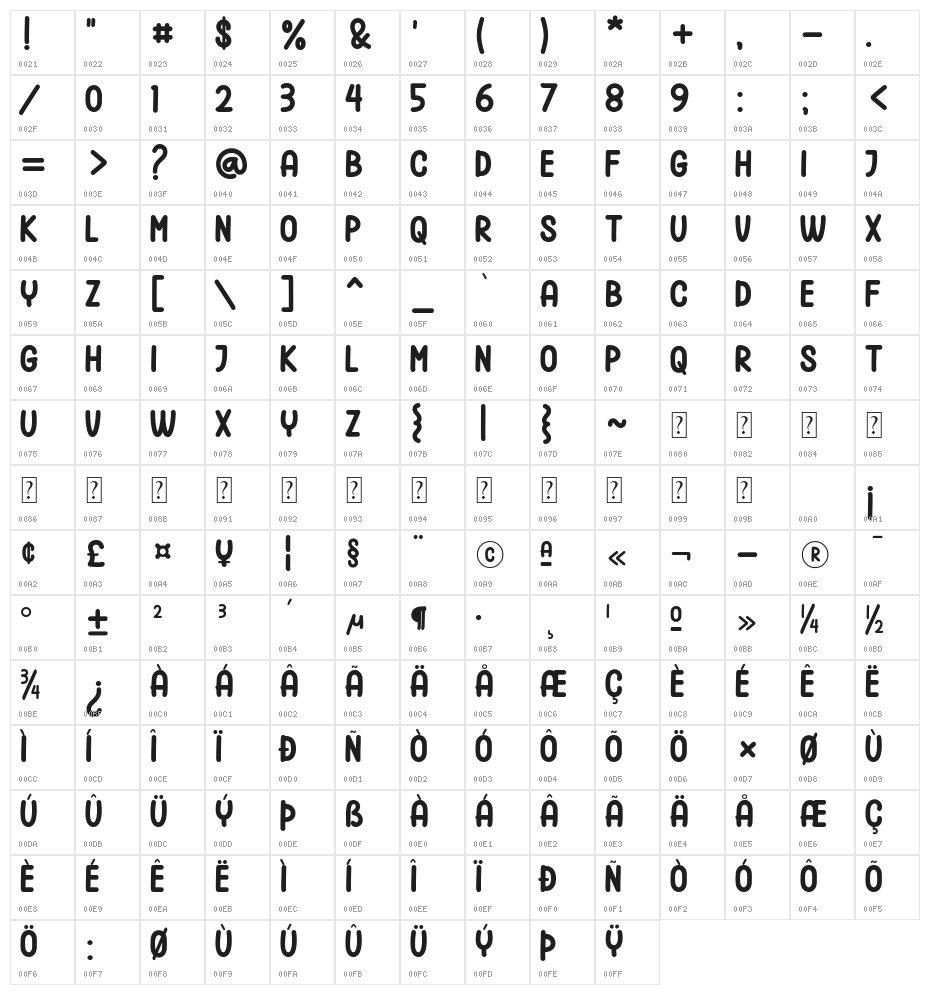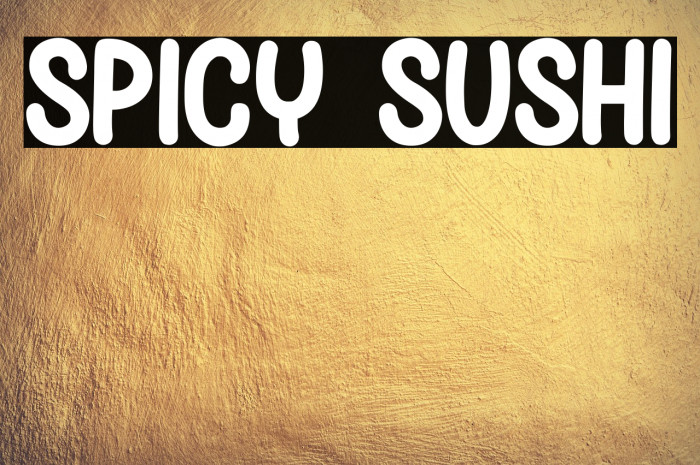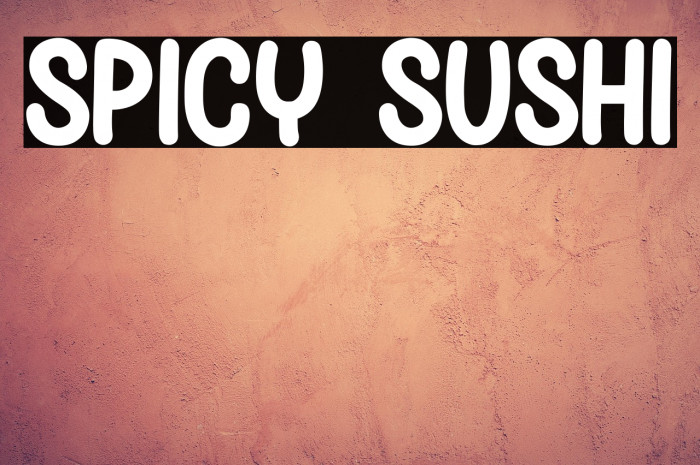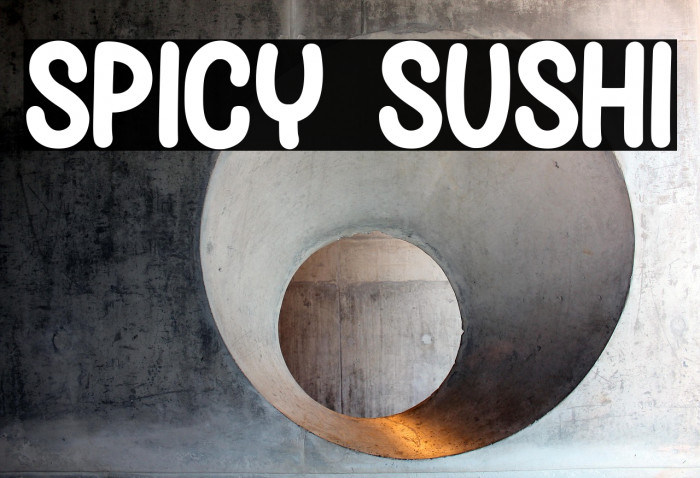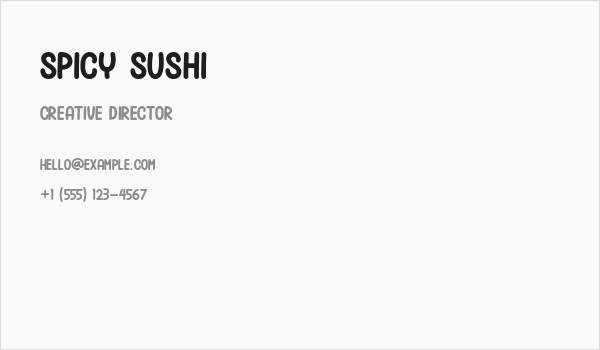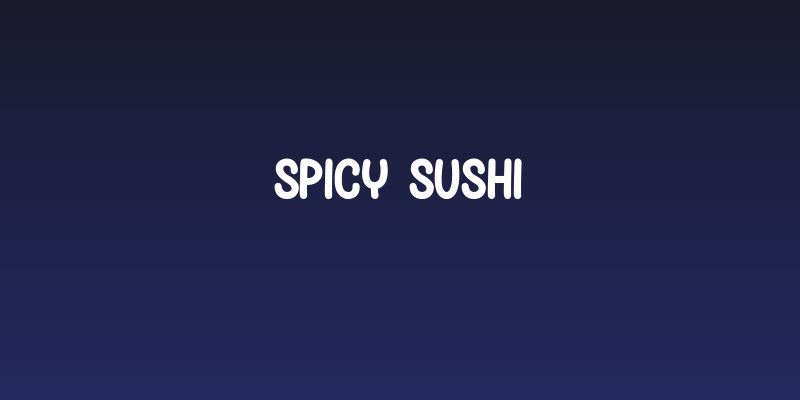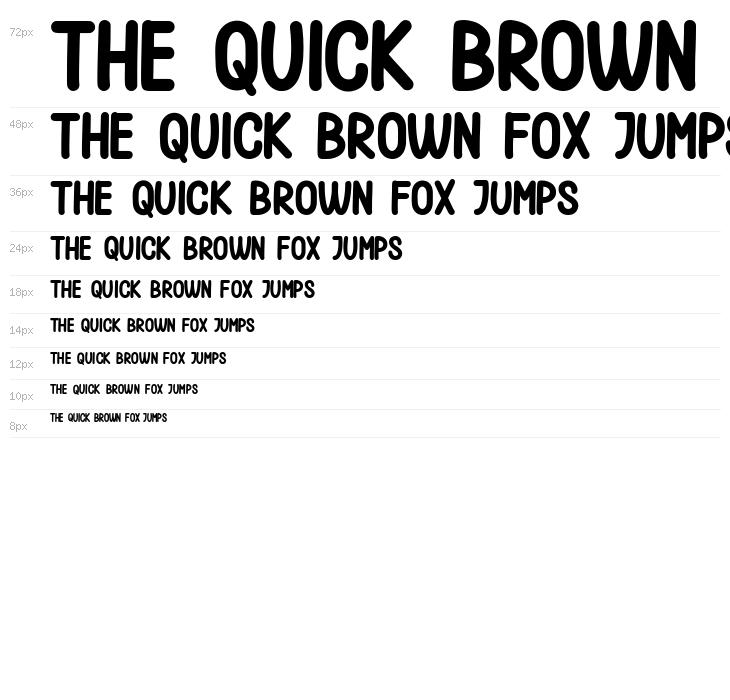
Spicy Sushi Font
Spicy Sushi Description
This playful and bold font features rounded edges and a bubbly appearance, giving it a friendly and approachable feel. The characters are thick and consistent in weight, making them highly legible and suitable for various design applications. The font's style is reminiscent of hand-drawn lettering, adding a personal touch to any project. Its uniform stroke width and smooth curves create a harmonious and balanced look, ideal for capturing attention in headlines or branding materials. The font includes a full set of uppercase and lowercase letters, numbers, and a variety of special characters, ensuring versatility in use.
| Overall Style | Playful, Modern |
| Proposed Projects | Ideal for children's books, playful branding, posters, and social media graphics. |